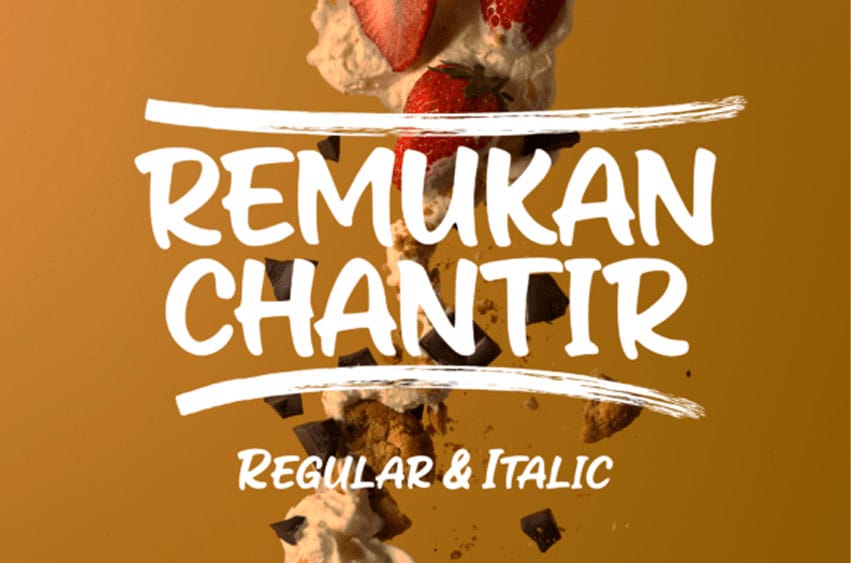
Remukan Chantir Font is a cheerful handwritten brush font that brings warmth and personality to every design.
With its bold strokes, soft curves, and natural rhythm, this font captures the spontaneous energy of real hand lettering — fun, friendly, and full of life.
This family includes Regular and Italic styles, giving you the flexibility to mix expressions and create dynamic compositions.
The italic version adds an extra sense of motion and emotion, perfect for quotes, posters, or designs that need a touch of playfulness.
Ideal for logos, packaging, kids’ products, invitations, posters, and social media graphics, Remukan Chantir makes every word stand out with authentic handmade charm.
Natural brush texture for a genuine handwritten feel
Let your creativity flow with Remukan Chantir — a font that smiles with every stroke.